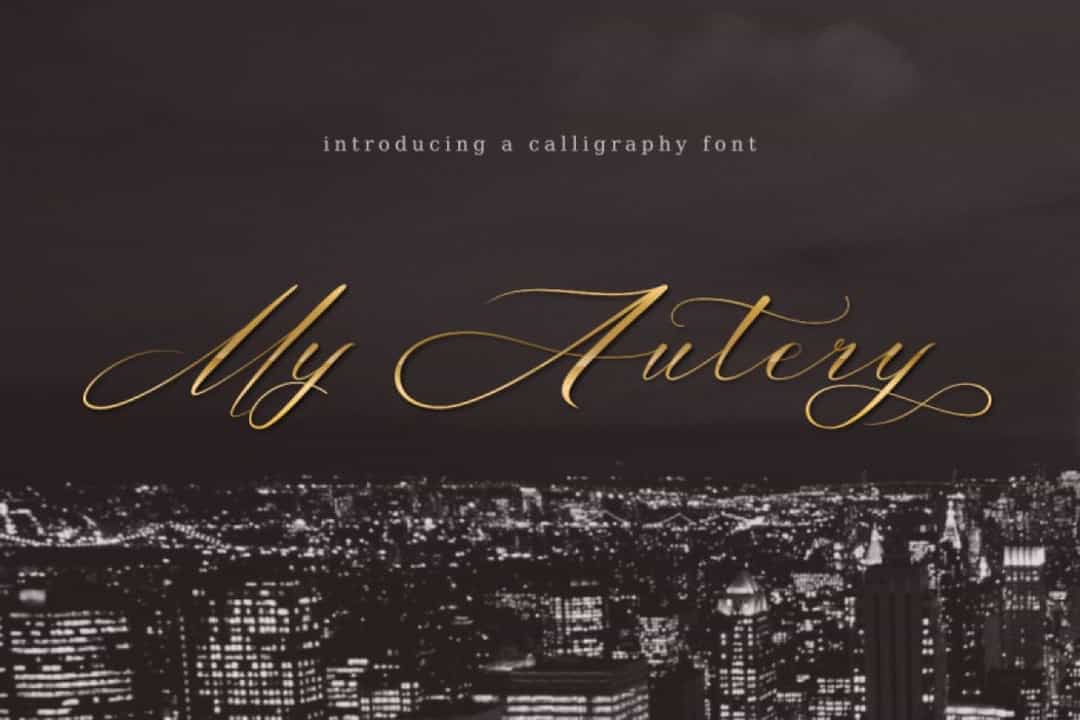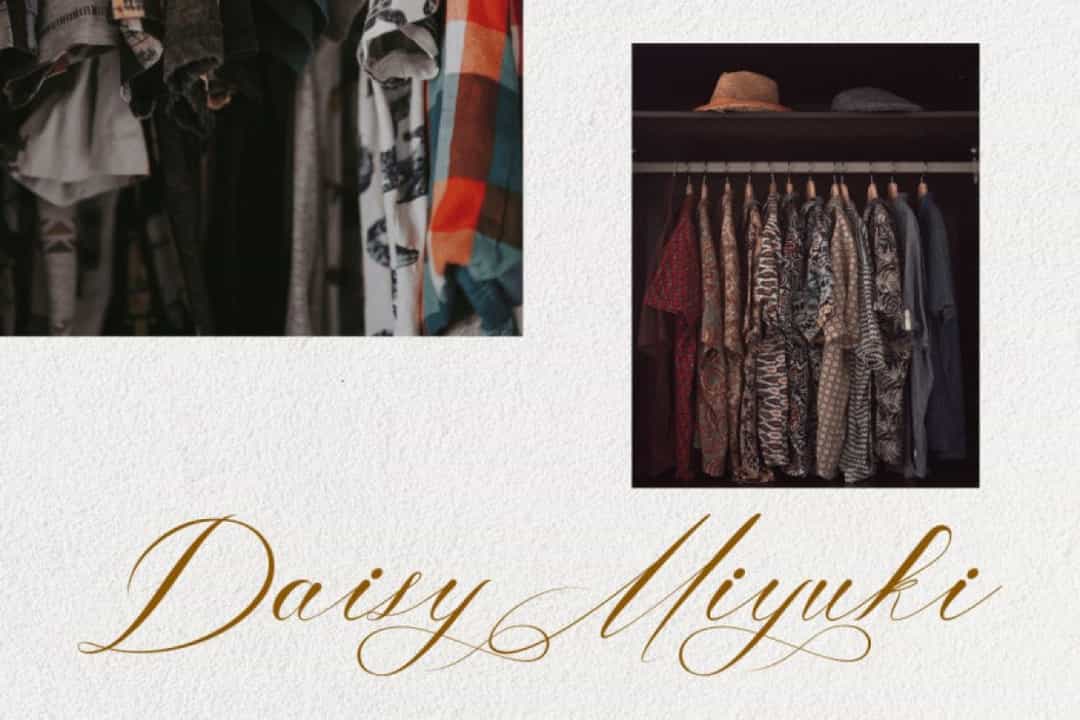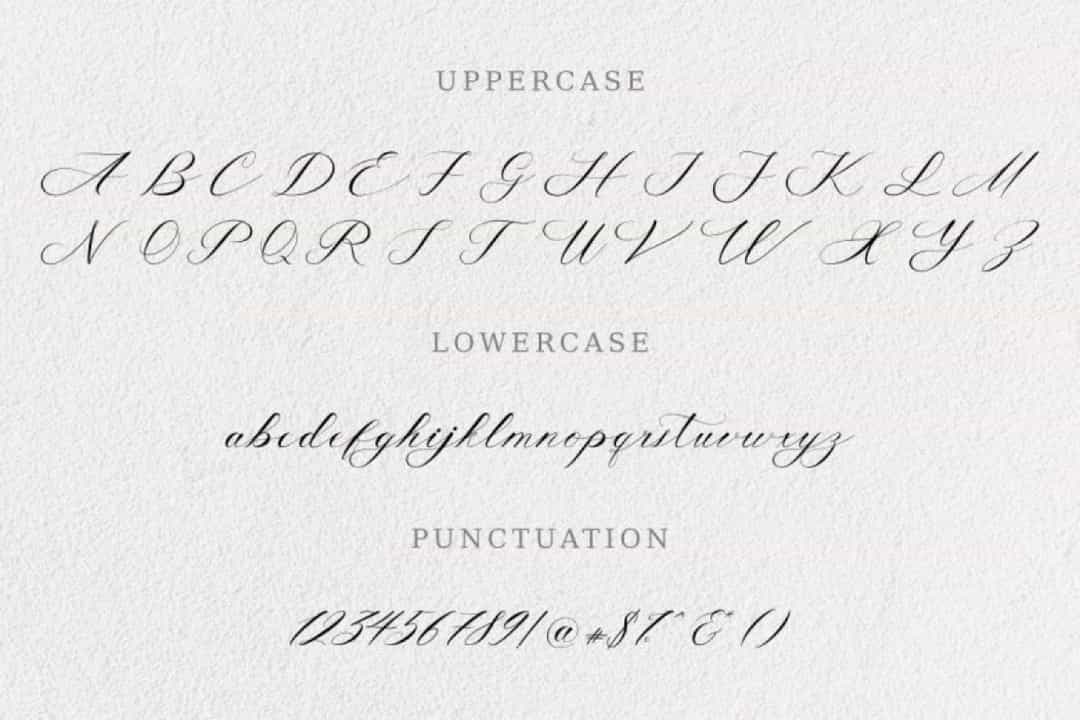
My Auteryis an elegant and distinctive script calligraphy font that offers romantic designs perfect for love invitations, wedding cards, or other designs you have in mind. Add this beautiful and romantic script calligraphy font to any love invitations, wedding cards or your design projects and be amazed at what results await.